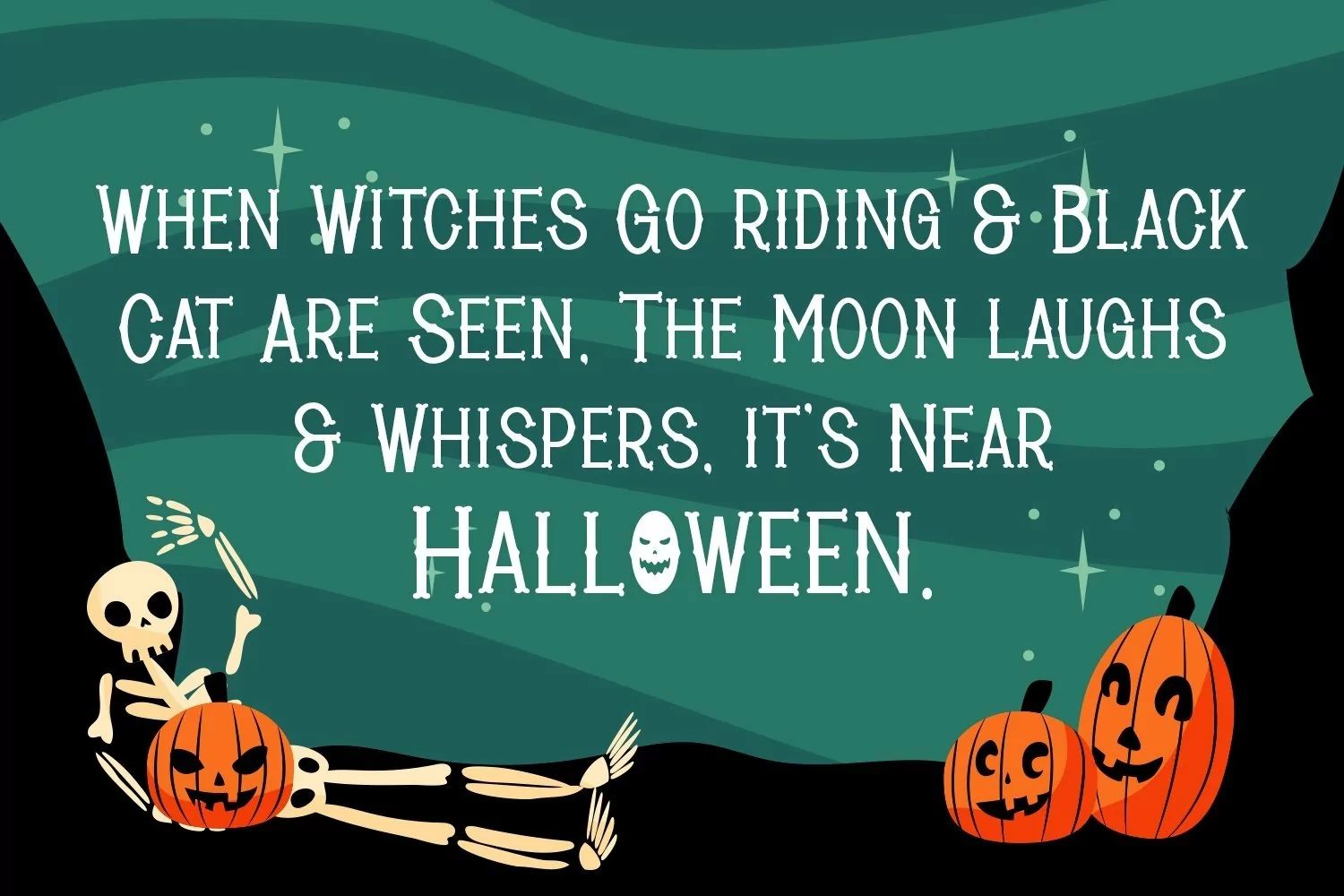
Web Font Skeleton
Skeleton is a bone display typeface. Perfect for halloween needs, poster, quotes, flyer, badges, logo, halloween sale, greeting cards and manymore.